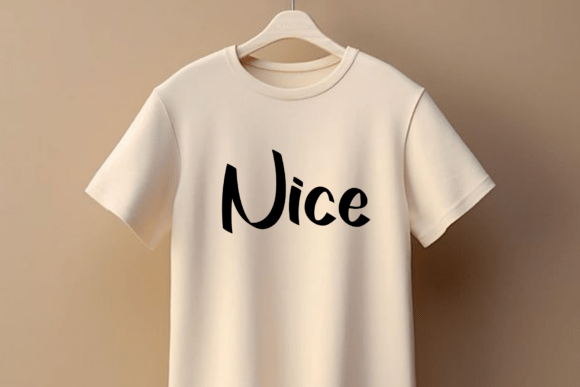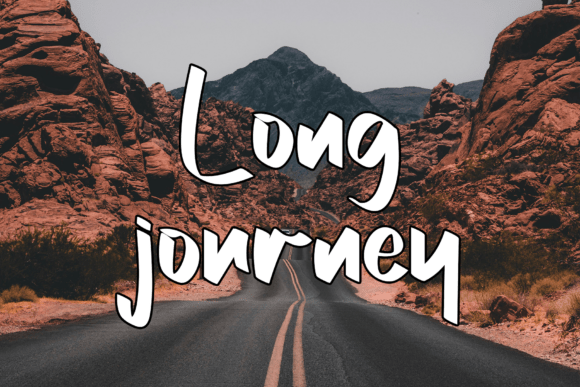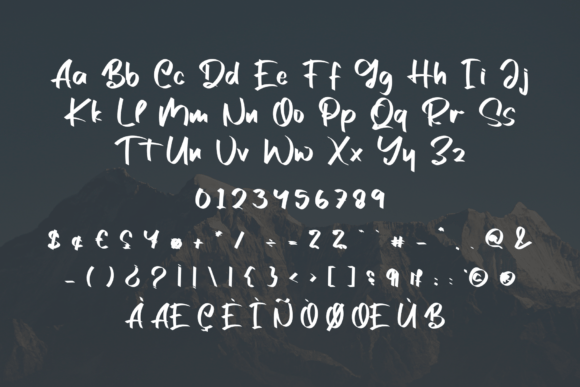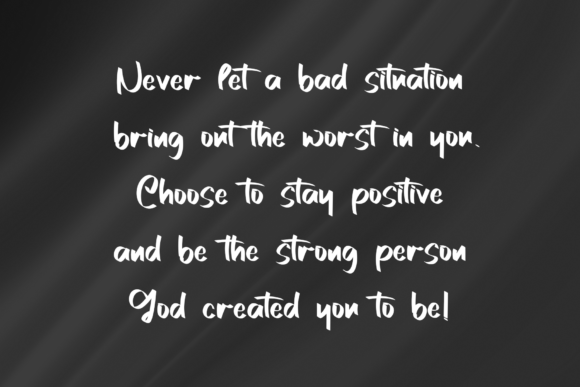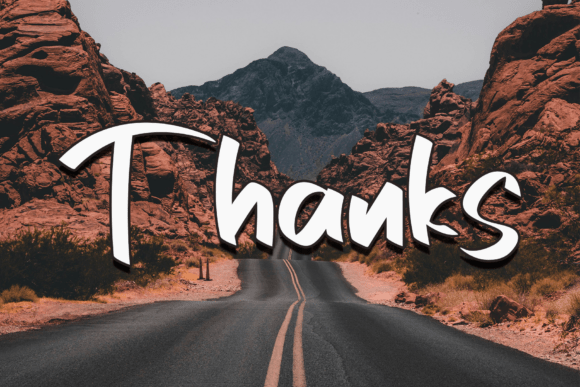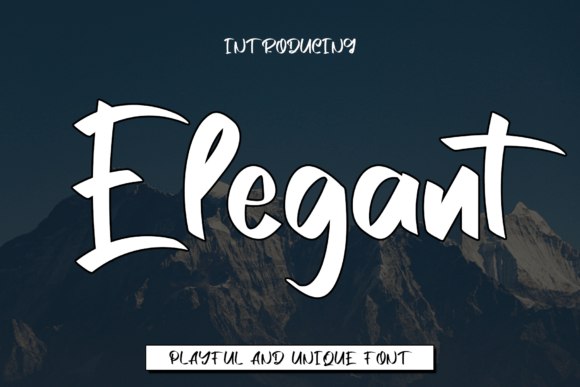
Elegant Font: The Perfect Choice for Your Design Projects
Are you looking for a font that exudes elegance, sophistication, and romance? Look no further than the Elegant font, a sweet and cursive handwritten font that is sure to elevate your design projects to the next level. With its gentle and flowing curves, this font is perfect for adding a touch of whimsy and charm to a variety of design ideas.
What Makes Elegant Font So Special?
Elegant font is a versatile and beautiful font that is designed to make your designs look fancy and elegant, yet still casual and approachable. Its cursive and handwritten style gives it a personal and human touch, making it perfect for a wide range of design projects, from branding and logos to wedding invitations and greeting cards.
Whether you’re a designer, crafty DIY enthusiast, or simply someone who loves to create, Elegant font is the perfect choice for your design projects. Here are just a few ideas for how you can use this gorgeous font:
• Branding and Logos: Use Elegant font to create a memorable and stylish logo for your business or brand. Its elegant and sophisticated style is sure to make a lasting impression on your customers and clients.
• Wedding Invitations and Stationery: Add a touch of romance and whimsy to your wedding invitations, greeting cards, and other stationery with Elegant font. Its beautiful and flowing curves are sure to make your wedding stationery truly unforgettable.
• Fashion and Lookbooks: Use Elegant font to add a touch of glamour and sophistication to your fashion designs and lookbooks. Its elegant style is sure to make your designs stand out from the crowd.
• Marketing and Promotion: Whether you’re creating flyers, brochures, or social media graphics, Elegant font is the perfect choice for adding a touch of elegance and sophistication to your marketing materials.
Why Choose Elegant Font?
So why choose Elegant font for your design projects? Here are just a few reasons why this font is a great choice:
• Unique and Eye-Catching: Elegant font is a unique and eye-catching font that is sure to make your designs stand out from the crowd. Its elegant and sophisticated style is perfect for adding a touch of glamour and sophistication to your designs.
• Versatile: Elegant font is a versatile font that can be used for a wide range of design projects, from branding and logos to wedding invitations and greeting cards.
• Easy to Read: Despite its elegant and cursive style, Elegant font is easy to read and understand, making it perfect for use in body text and other applications where readability is important.
How to Use Elegant Font
Using Elegant font is easy! Here are a few tips for getting the most out of this beautiful font:
• Use it as a Headline Font: Elegant font is perfect for use as a headline font, where its elegant and sophisticated style can really shine.
• Pair it with Other Fonts: Elegant font pairs well with a wide range of other fonts, from simple sans-serif fonts to more decorative script fonts.
• Experiment with Different Colors: Elegant font looks great in a wide range of colors, from soft pastels to bold and bright hues.
In conclusion, Elegant font is a beautiful and versatile font that is perfect for adding a touch of elegance and sophistication to your design projects. With its unique and eye-catching style, Elegant font is sure to make your designs stand out from the crowd. Whether you’re a designer, crafty DIY enthusiast, or simply someone who loves to create, Elegant font is a great choice for any design project.